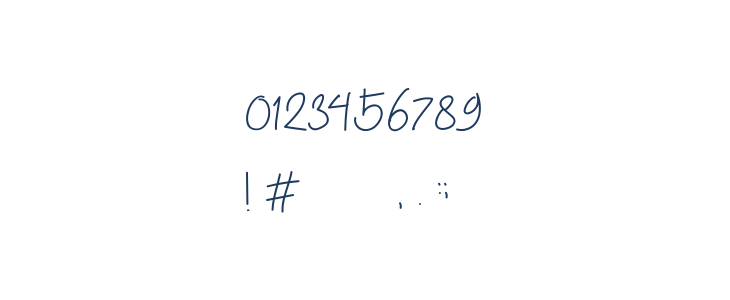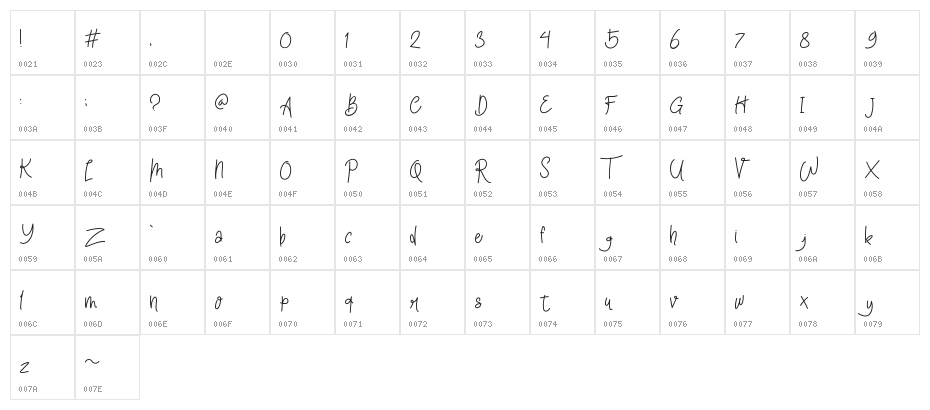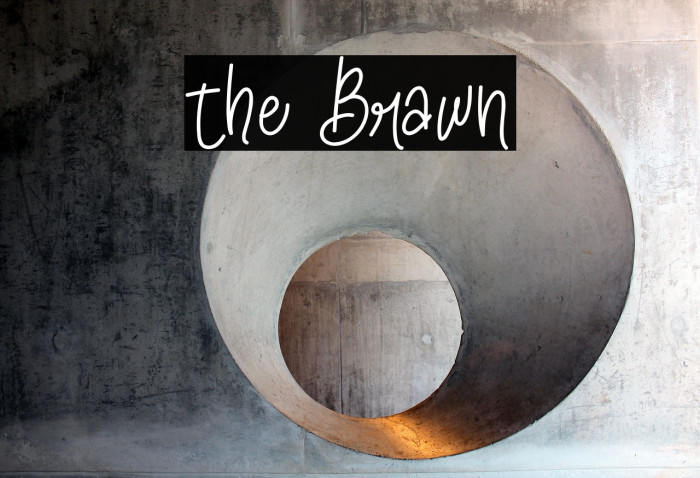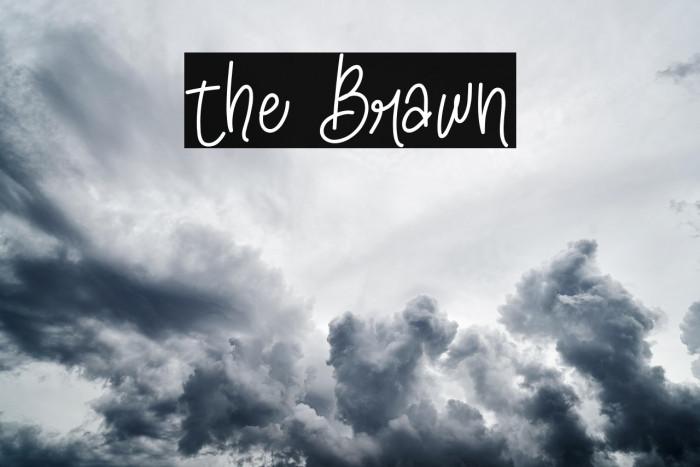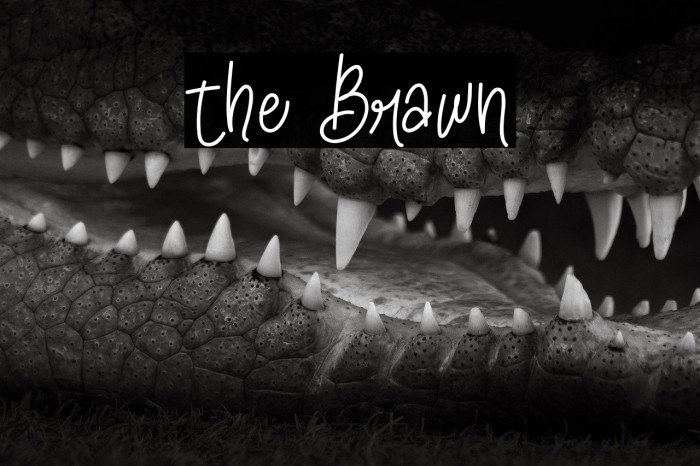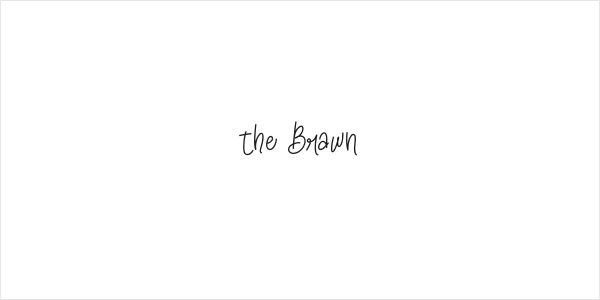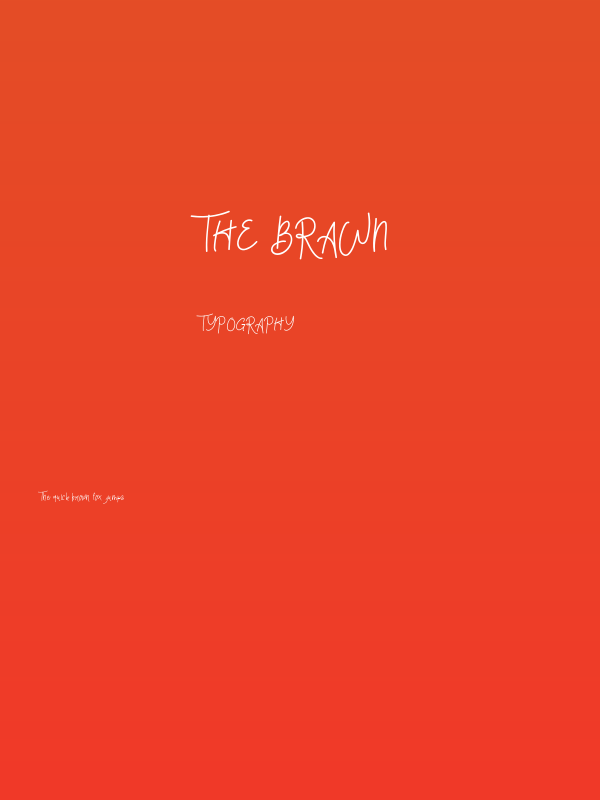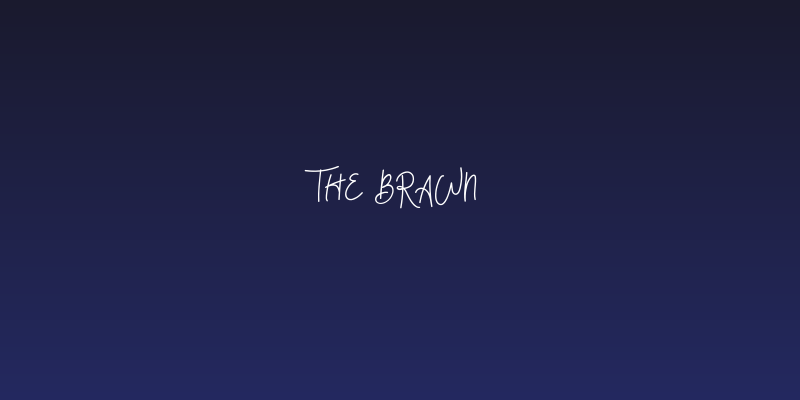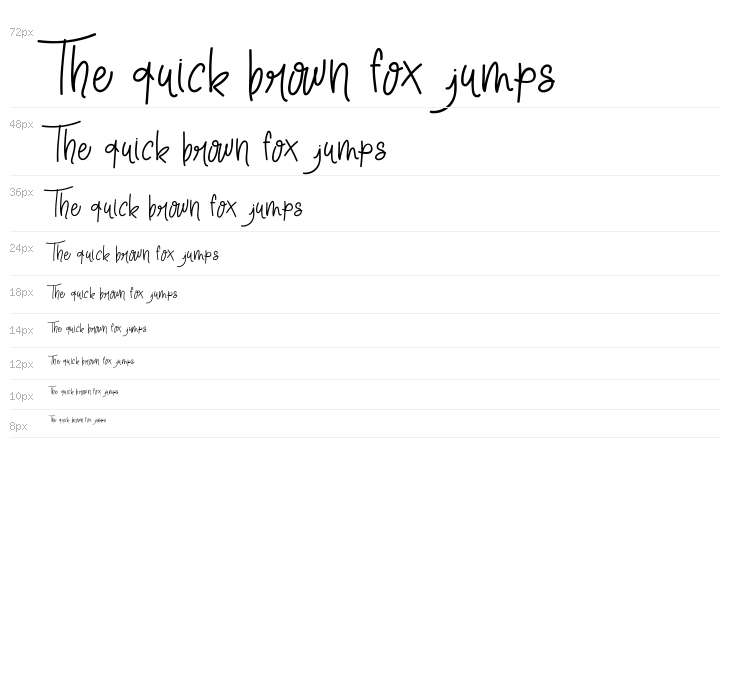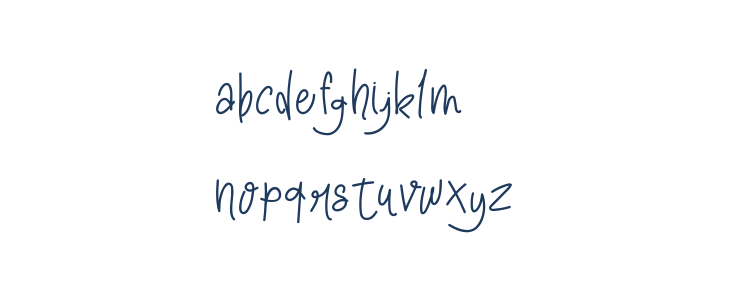
the Brawn Font
the Brawn Description
This font features a playful and whimsical handwritten style, characterized by its flowing, cursive-like strokes. The letters have a casual and informal appearance, with varying line thickness that adds a dynamic and lively feel. The uppercase letters are slightly taller and more elongated, while the lowercase letters maintain a consistent height, contributing to a balanced and harmonious look. The numerals and special characters are crafted with the same playful spirit, making this font suitable for creative and artistic projects. Its overall style is approachable and friendly, perfect for conveying a sense of warmth and personality.
| Proposed Projects | Ideal for greeting cards, invitations, personal branding, and creative social media graphics. |